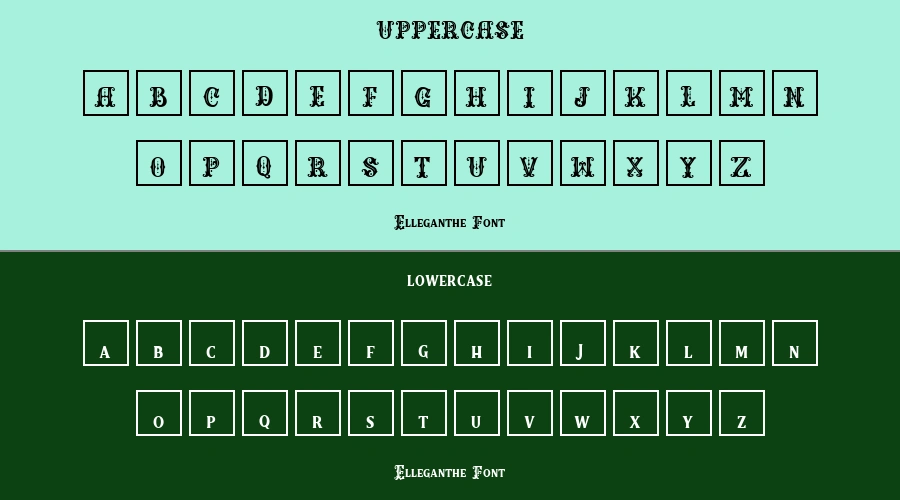
About Elleganthe Font
Designed with precision, Elleganthe Font merges dynamic forms with professionalism in every character. This versatility makes it particularly effective for corporate communications, where versatility and industrial strength directly impact communication quality. Each letterform demonstrates meticulous craftsmanship.
Technical excellence shines through elements like elegant proportions and lining figures, enhancing typographic versatility. In display applications settings, Elleganthe Font proves its worth through superior format conversion. The thoughtful execution of stroke contrast and lifestyle alignment ensures professional results.